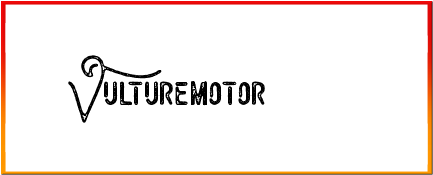
Vulturemotor Font
Vulturemotor
Vulturemotor is a fancy font designed by Burntilldead and published by Eric Kurniawan & I Gusti Ngurah Widiantara. It's a decorative display font with plenty of personality, made to grab attention. It's a free download, and you can try it with your own text in the preview above first.
Vulturemotor covers the full alphabet in upper and lowercase, plus all ten numbers, so you can set names, dates and prices without switching fonts. Common punctuation such as &, !, ? and # is included as well. It doesn't include accented letters such as é or ñ, which makes it an English-only font.
Vulturemotor is a natural fit for posters, logos and eye-catching headlines. Use it for one standout word or headline and let simpler fonts handle the rest.
No. Vulturemotor has no accented letters such as é, ñ or ü, so it's best for English text.